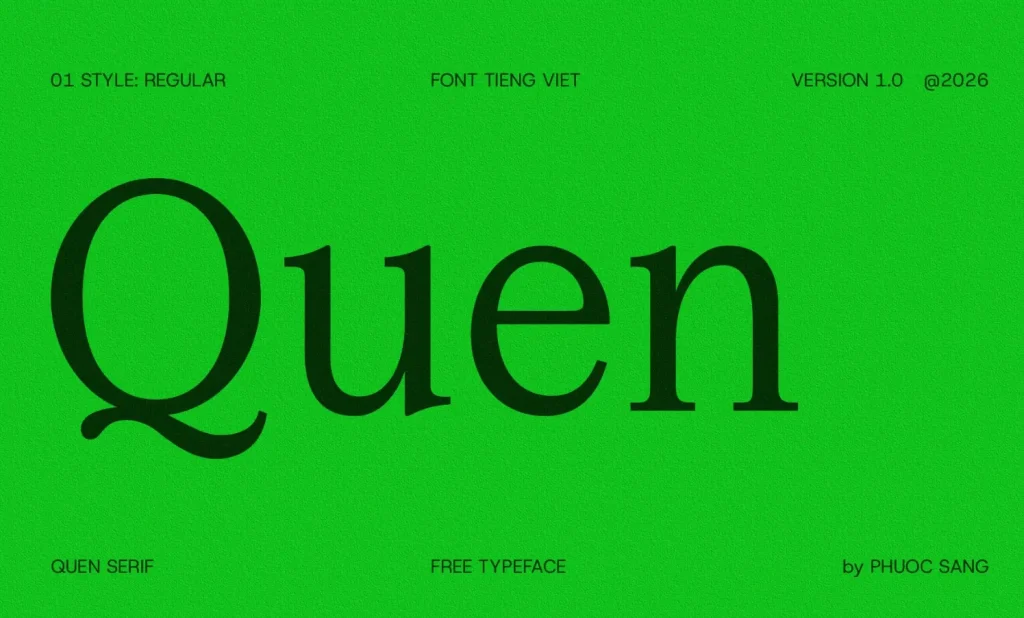
Quen is a free serif font with a classical base and a modern tone. The typeface draws from transitional serif models such as Baskerville and uses an upright axis, rounded ball terminals, and distinct letterforms. You can use it for headlines, editorial layouts, and other text that needs a refined but expressive look.
Key Features
- Serif typeface with transitional design influence
- Inspired by classic models such as Baskerville
- Upright axis for a stable structure
- Rounded ball terminals with a warm tone
- Distinctive curves in letters such as Q and R
- Optimized support for Vietnamese diacritics